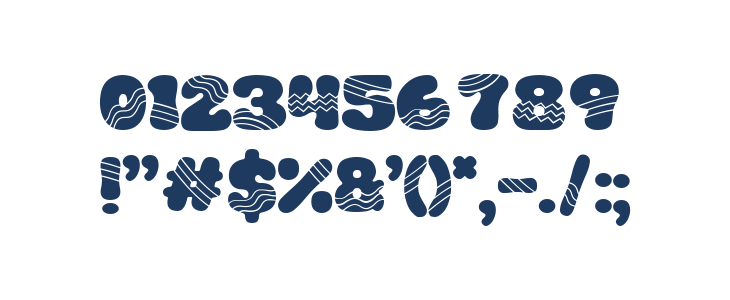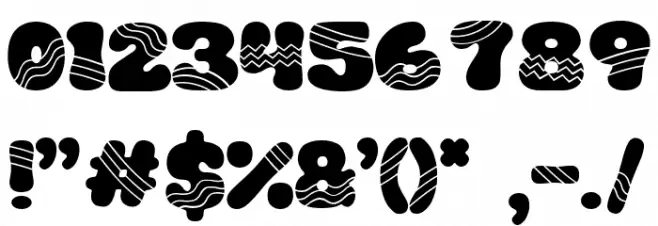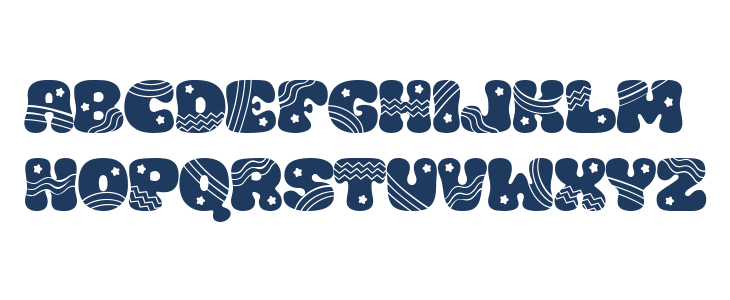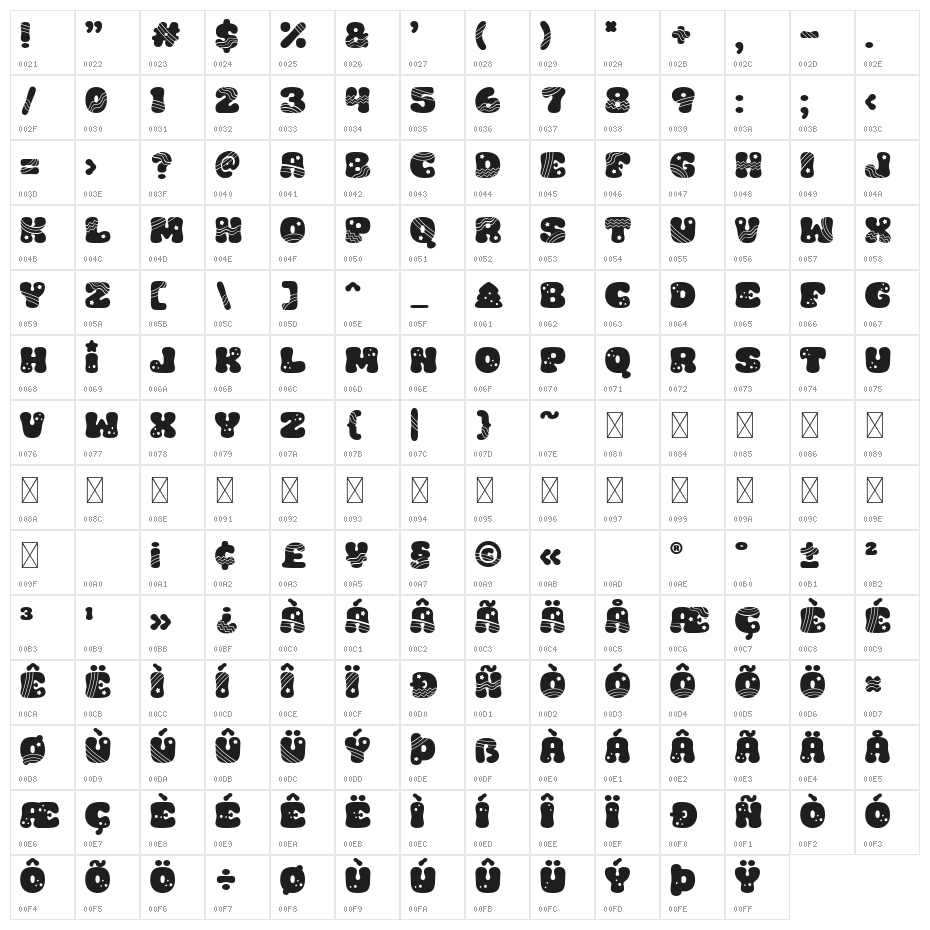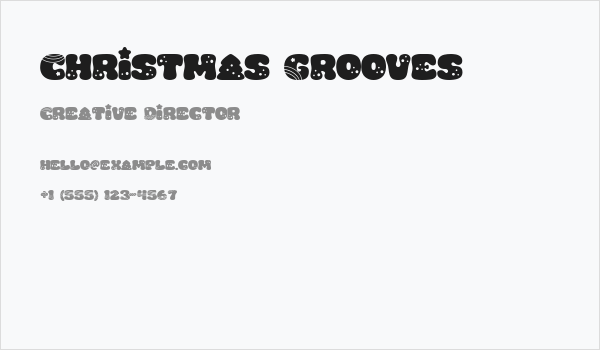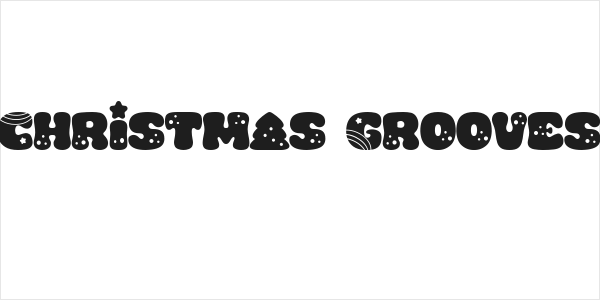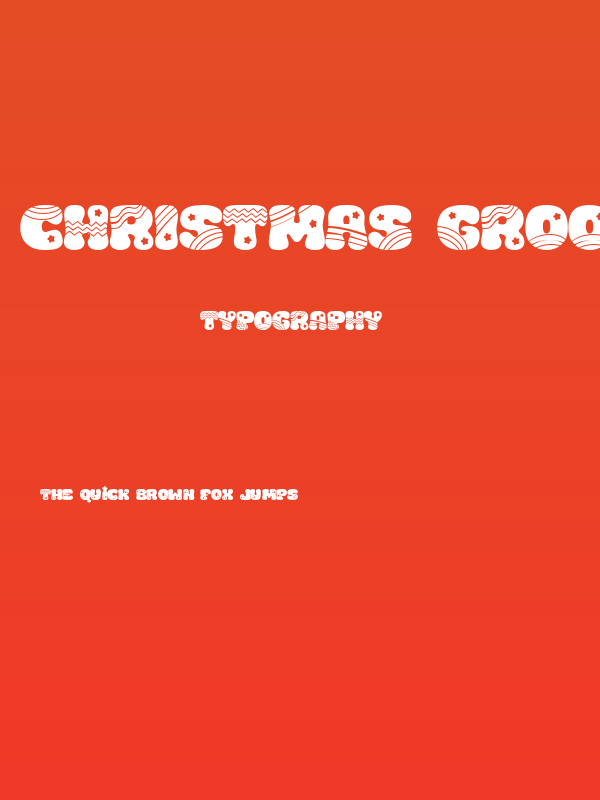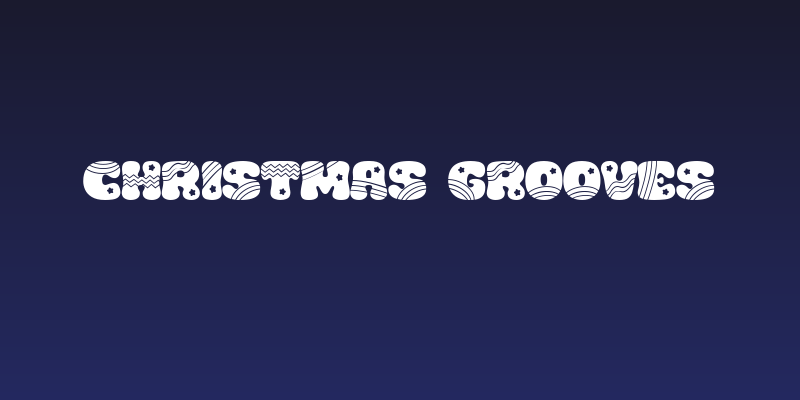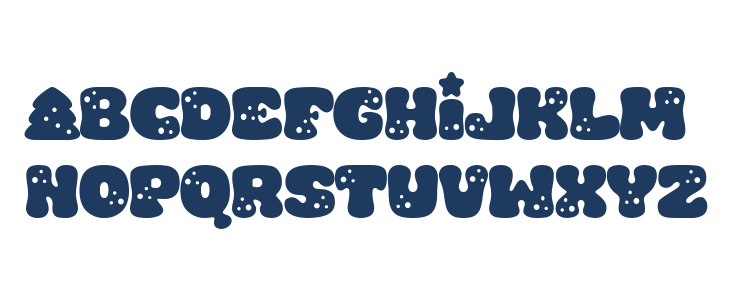
Christmas Grooves Font
Christmas Grooves Description
A playful, bold decorative font with rounded, bubbly letterforms featuring festive patterns such as stripes, waves, polka dots, and star or snow-like accents, evoking a holiday or Christmas theme.
| Overall Style | Decorative, Playful, Festive |
| Use Case | Headlines, Posters, Logos, Greeting cards |
| Proposed Projects | Holiday cards, festive posters, party invitations, children's event branding, seasonal packaging. |